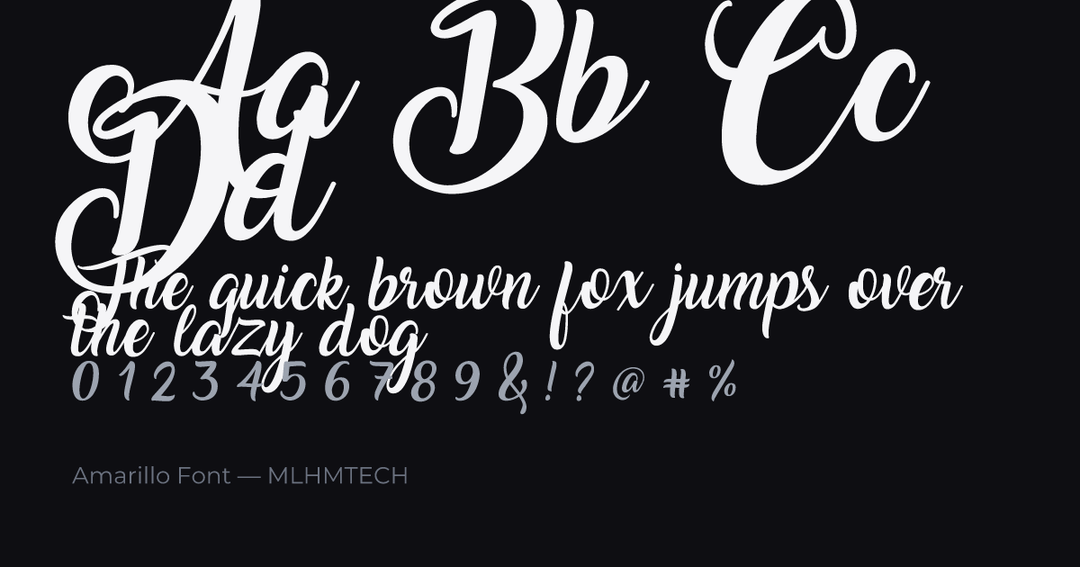
Amarillo Font
Amarillo is a bold, eye-catching display font ideal for headlines, posters, and branding projects. Its strong character adds a unique touch to any design.
Amarillo is a handpicked display font that brings a bold and distinctive style to your creative projects. With its strong letterforms and confident presence, it is perfect for headlines, titles, posters, and branding materials that need to stand out.